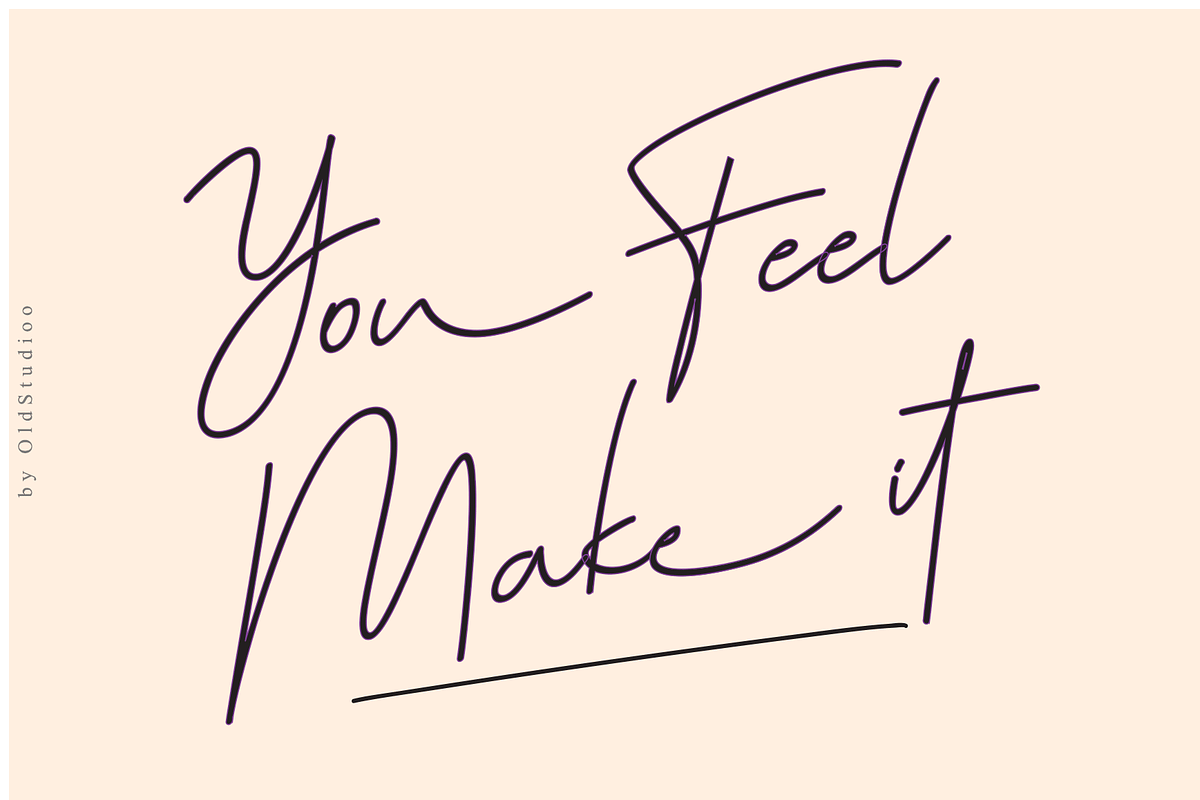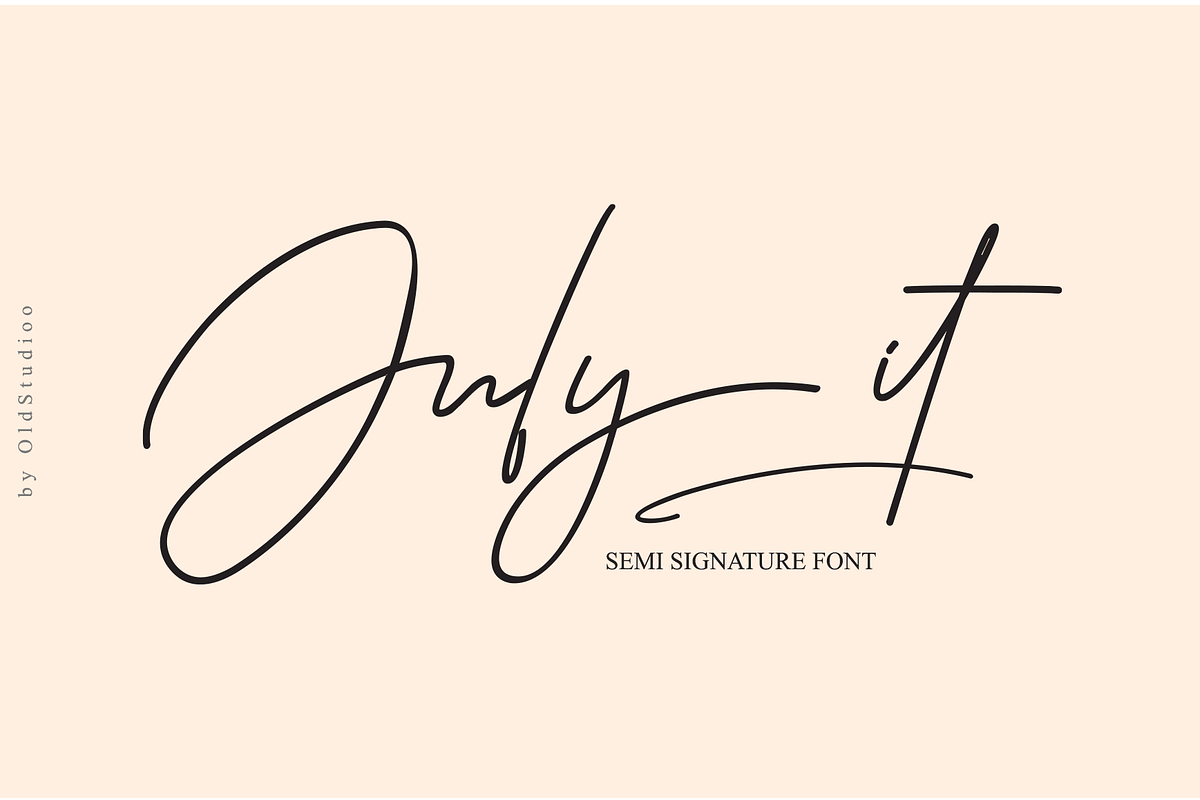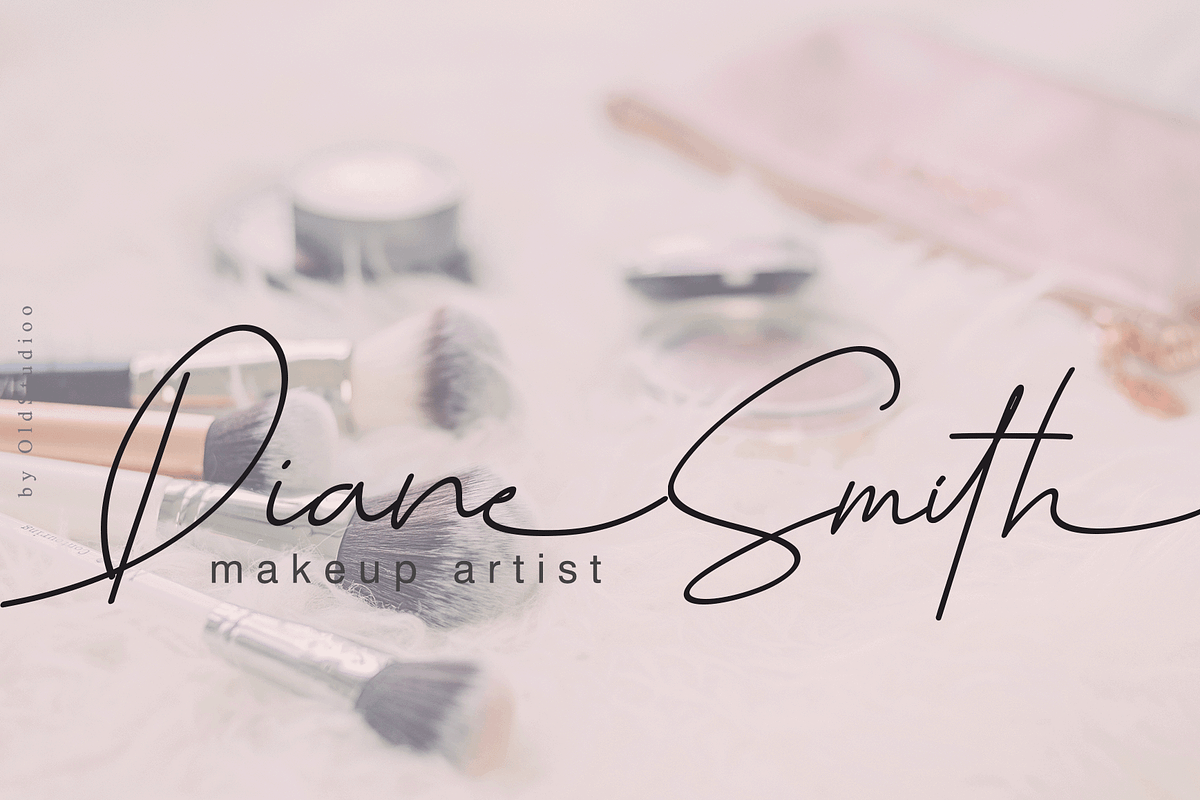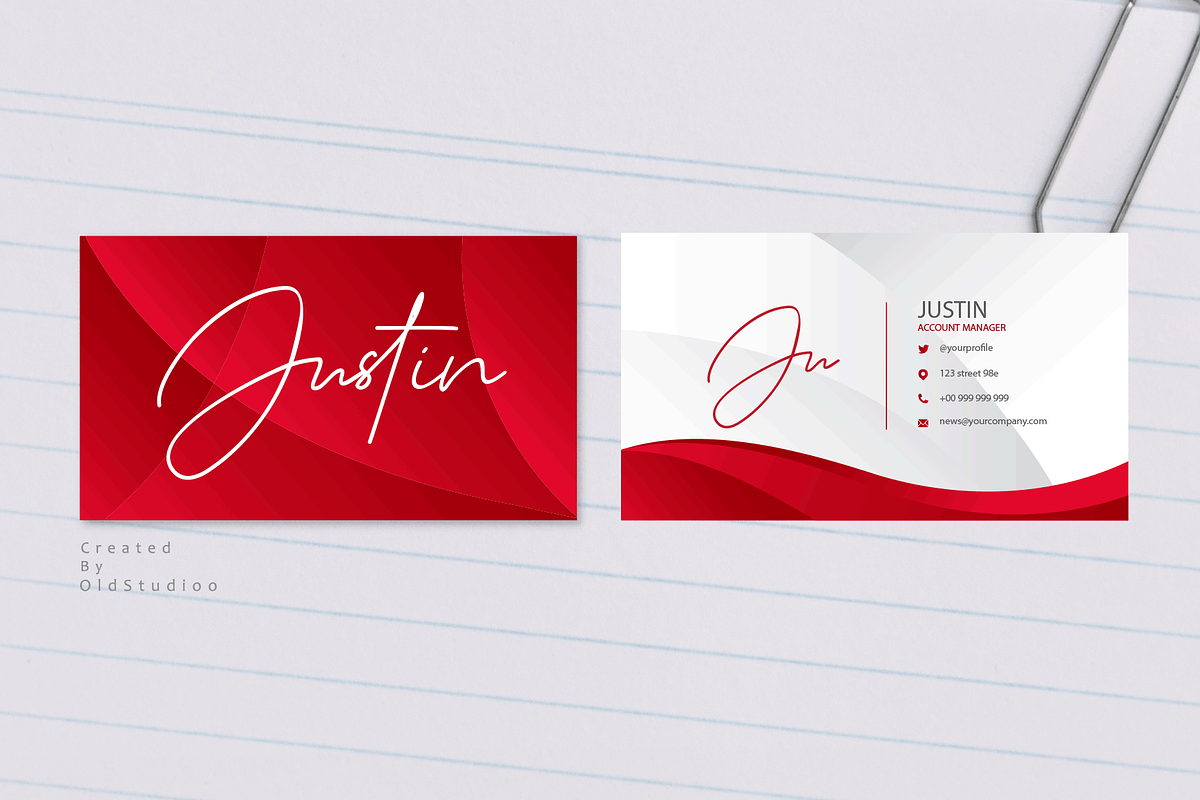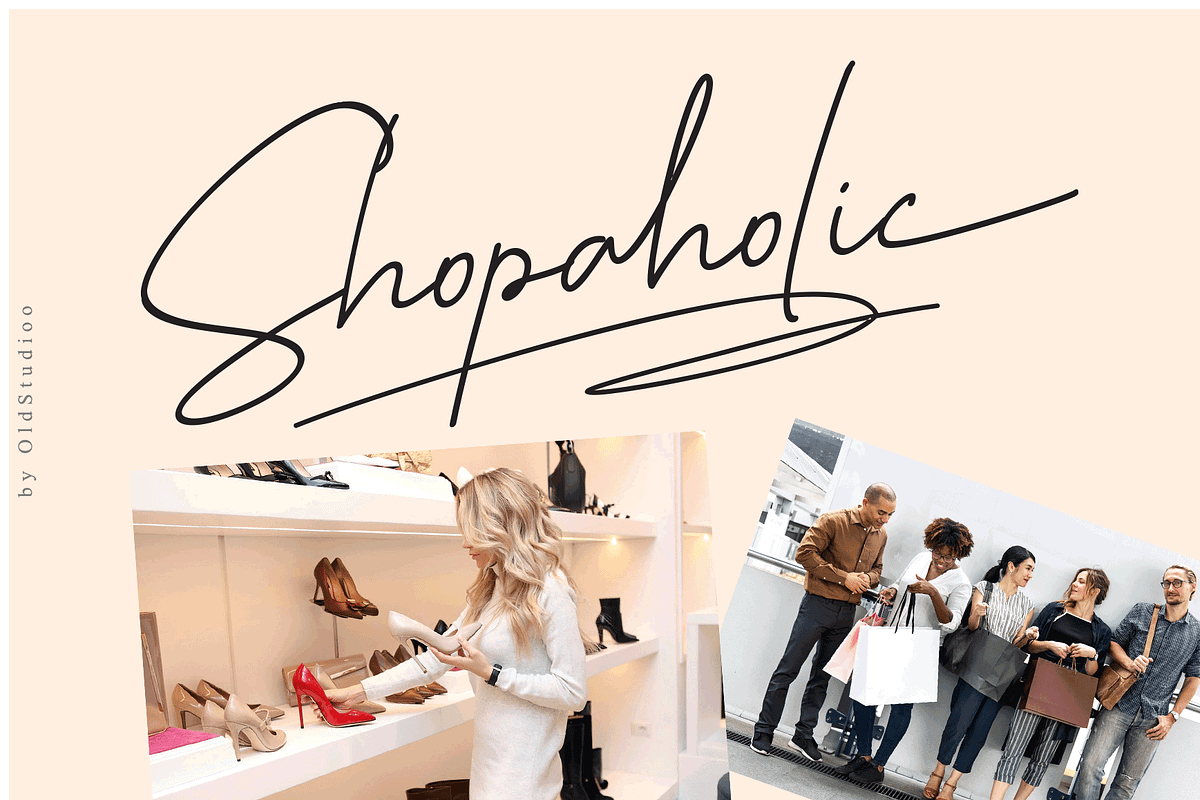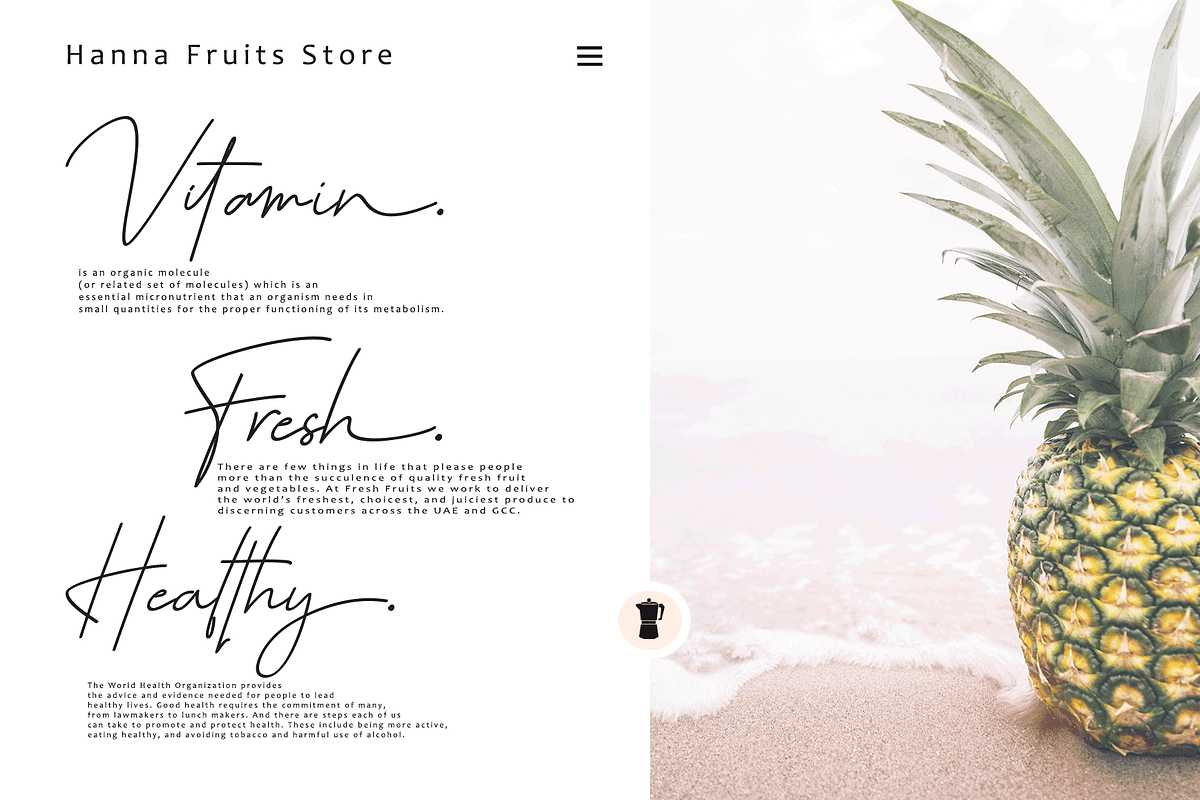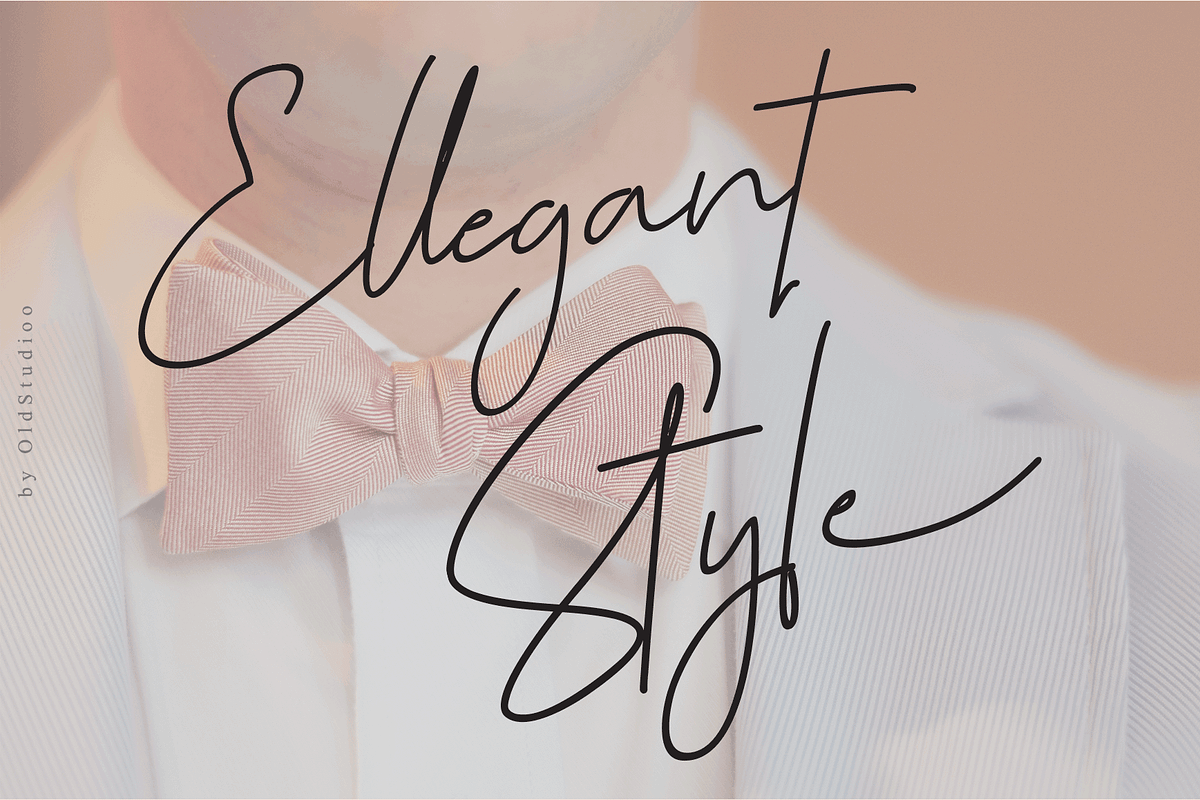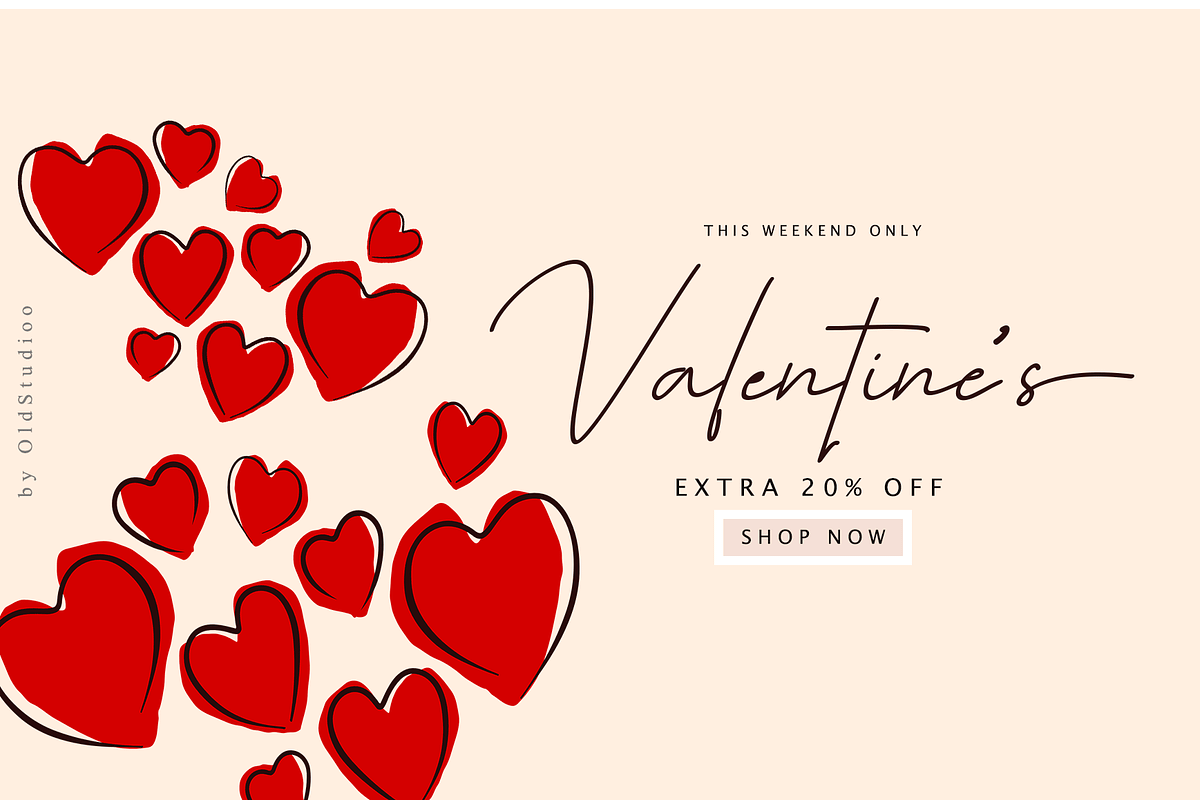
July it // Semi Signature Font
We introduce our new product called July it Semi Signature Font
July it Semi Signature is a signature font that you can use to make a design. This is perfect for BRANDING,funny logos with this font and poster headline, magazines, book titles, business cards, beautiful fashion designs, advertisements, product designs, wedding invitation, signature or handwritten quote.
July it also includes full set of uppercase and lowercase letters, multilingual symbols, numerals, punctuation. The font has smooth wet ink texture, so would be perfect for all types of printing techniques+you can do embroidery, laser cut, gold foil etc.